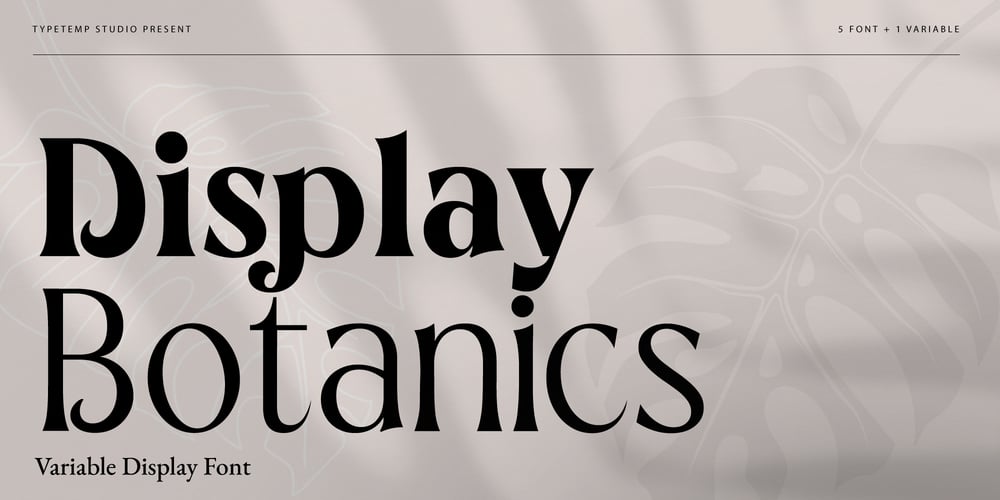
Botanics Display
Botanics Display font
Botanics Display Font Family was designed by Haris Purnama Putra, Egi Ahmad Mufid and published by Typetemp Studio. Botanics Display contains 5 styles and family package options. Botanics – Display Typeface is a Elegant Serif Display comes with 5 Weights (Light, Regular, Semi, Medimu, Bold), Variable, alternatives and ligatures, helps to create stunning Posters, Branding, Tshirt, Social Media Graphics and much more.